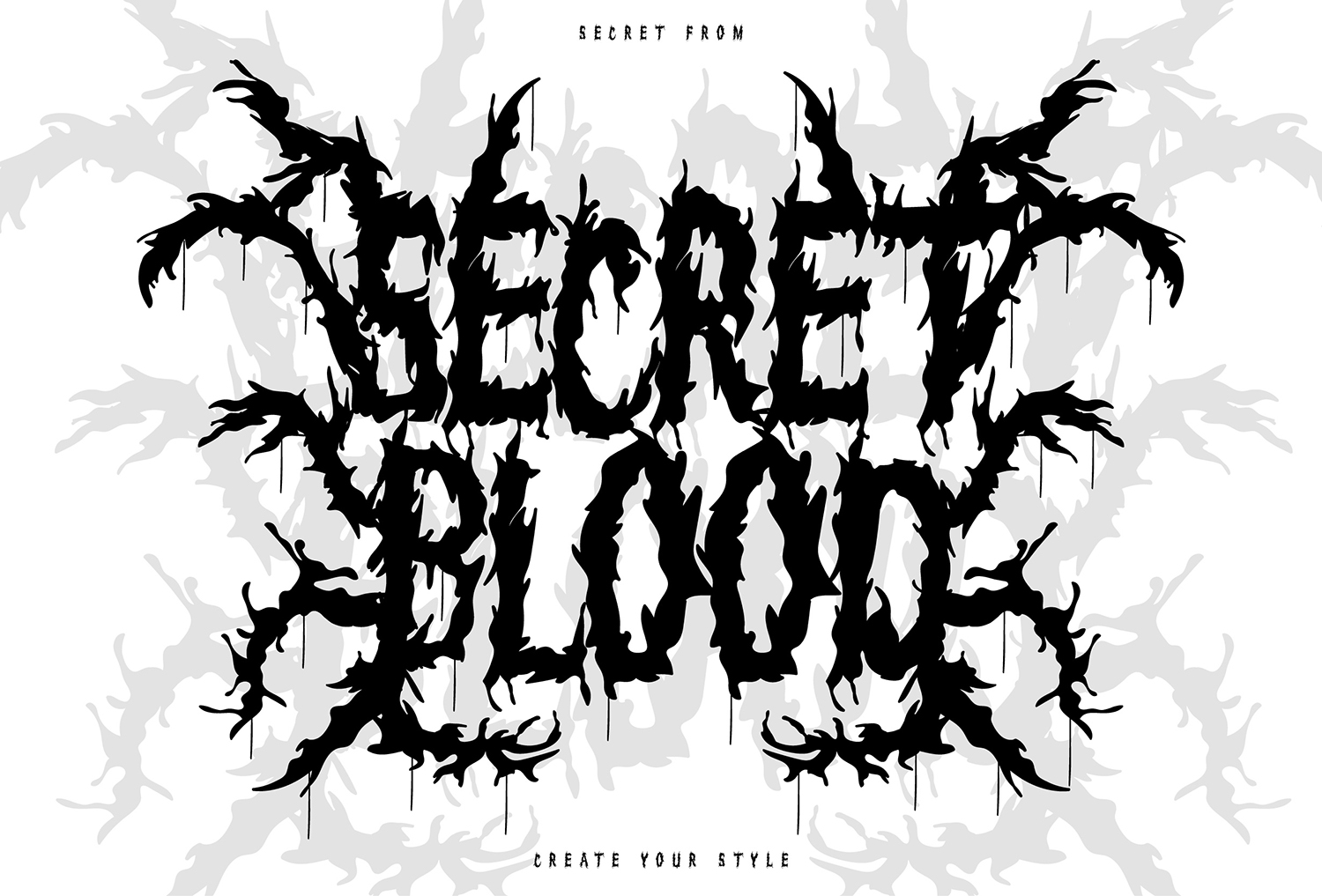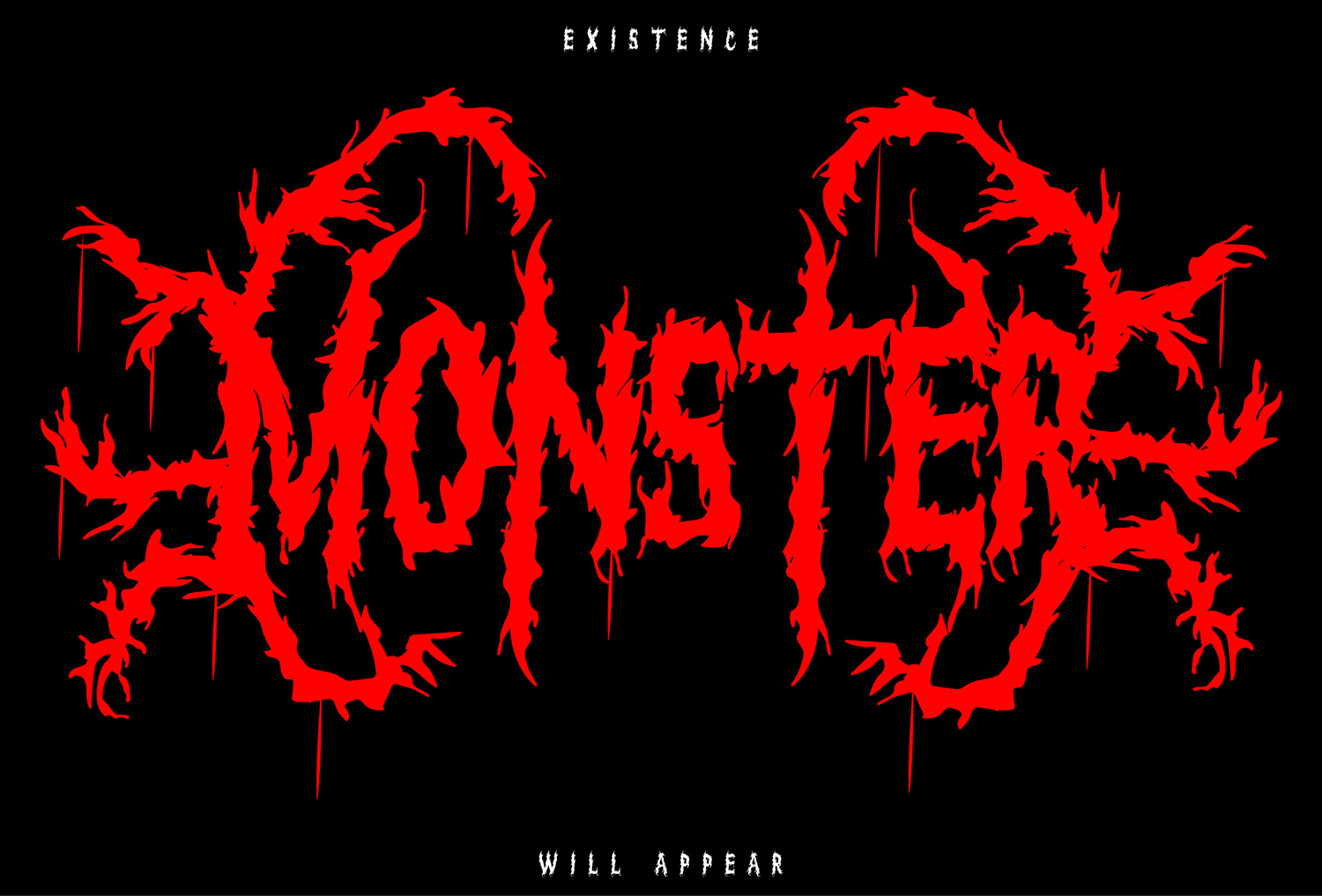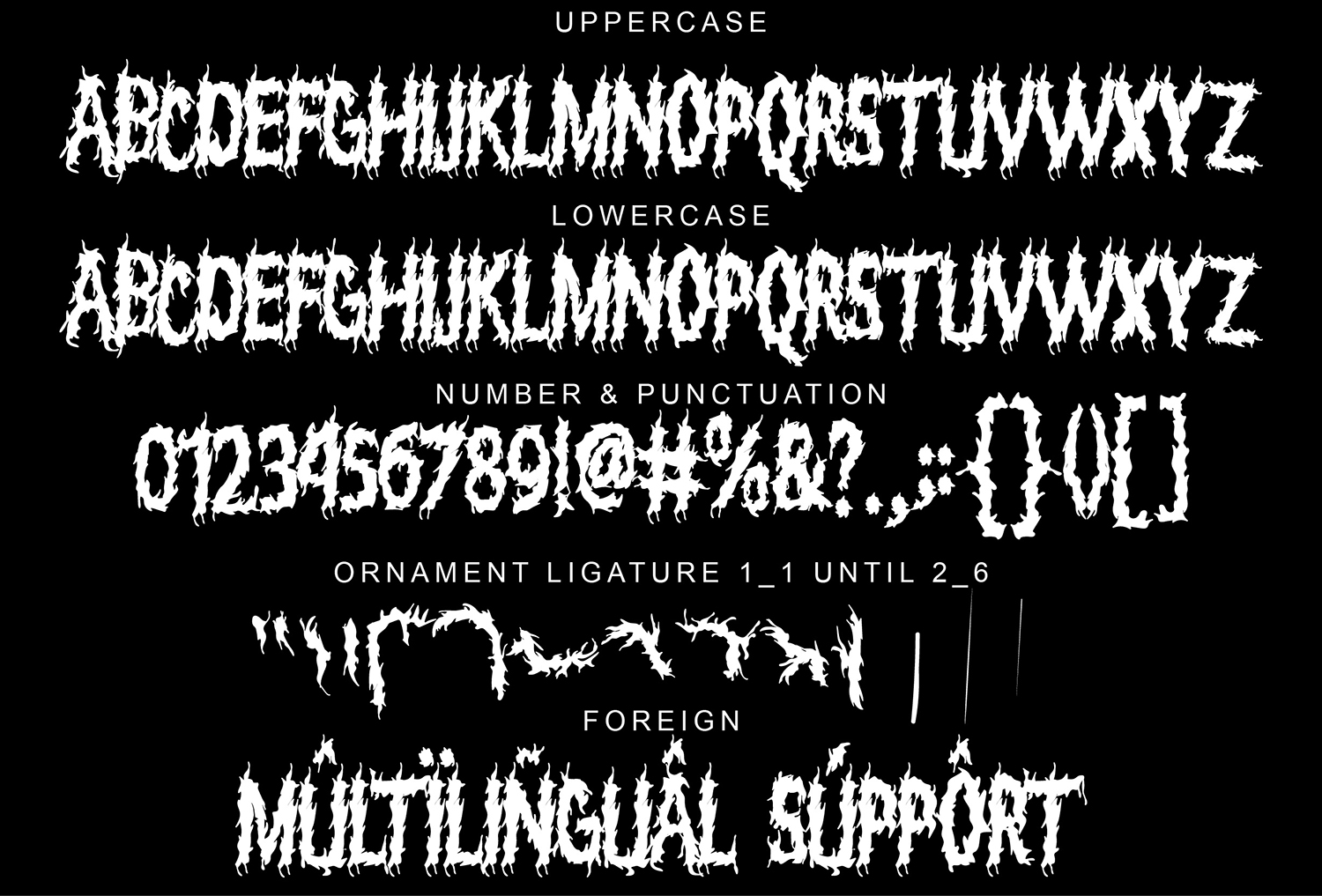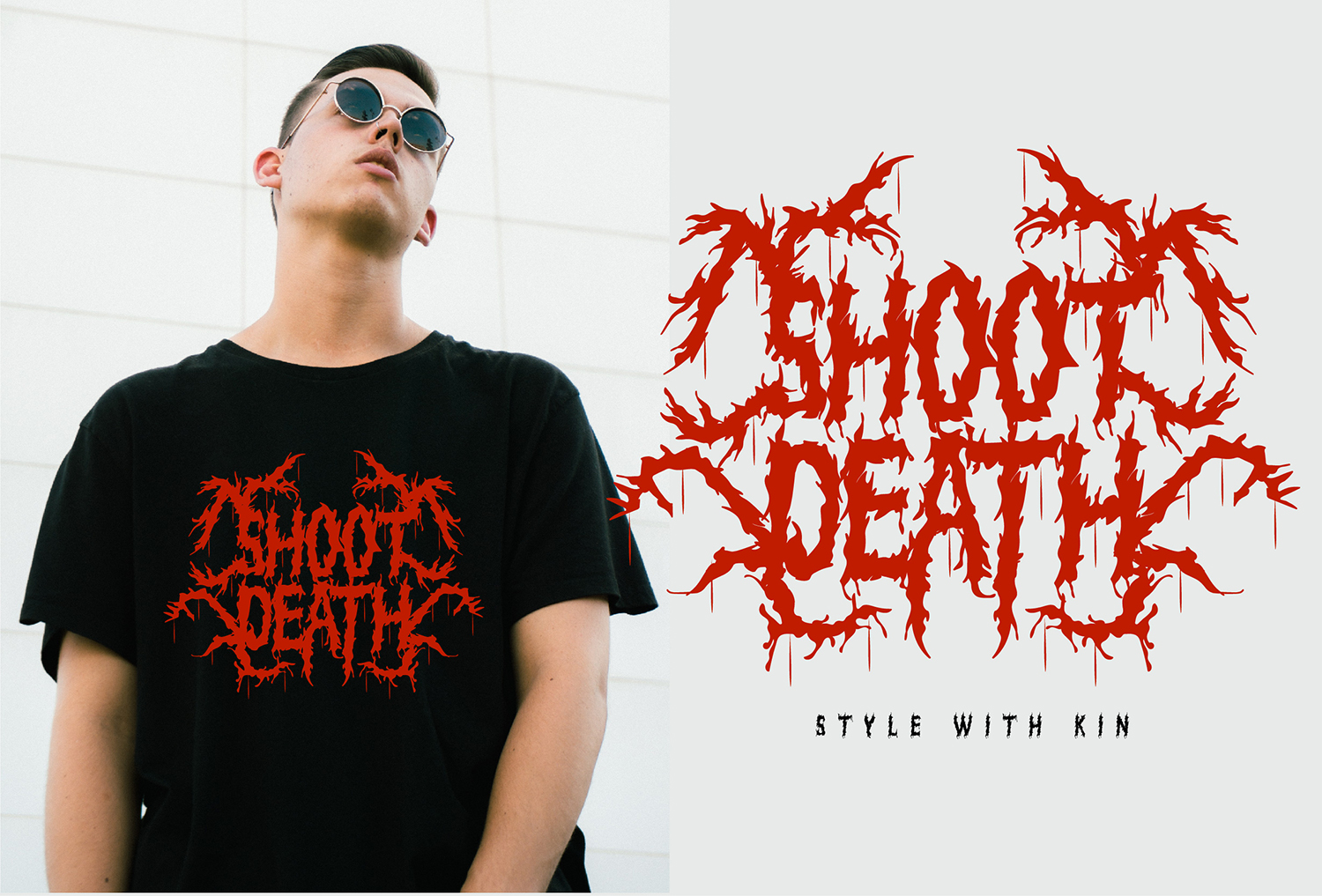
Death Angel Free Font
Death Angel Free Font has a strong and aggressive look with crisp, sharp lines. This font has hard angles and leans slightly towards the vertical, giving it a sharp, scary feel. Accompanied by additional ornaments that you can custom style yourself. This free typeface was designed by a talented Akhmad Reza Fauzi. If you like it don’t forget to check out the full version.